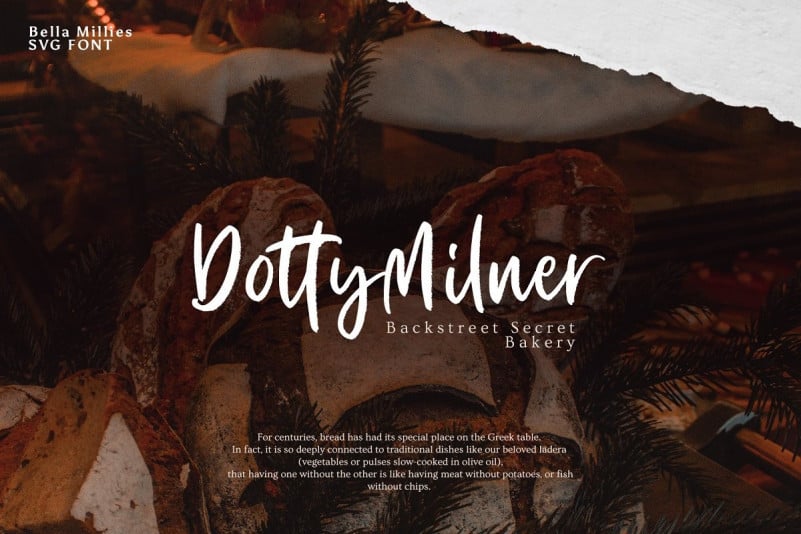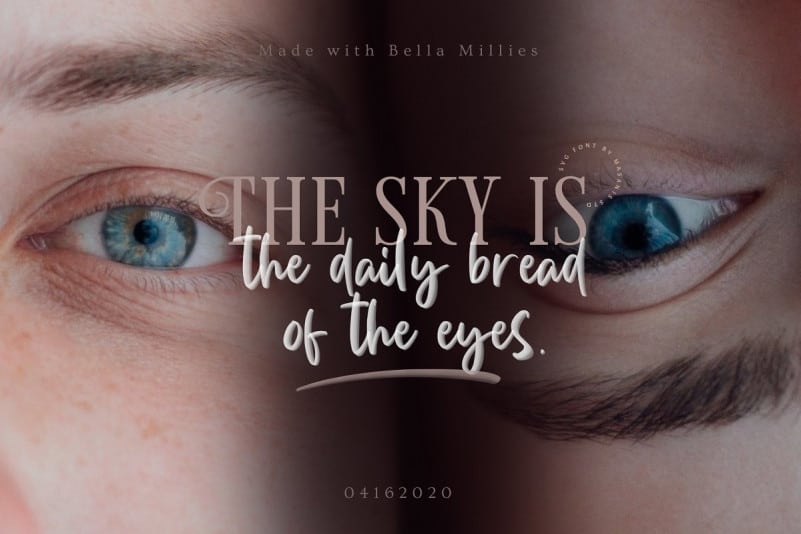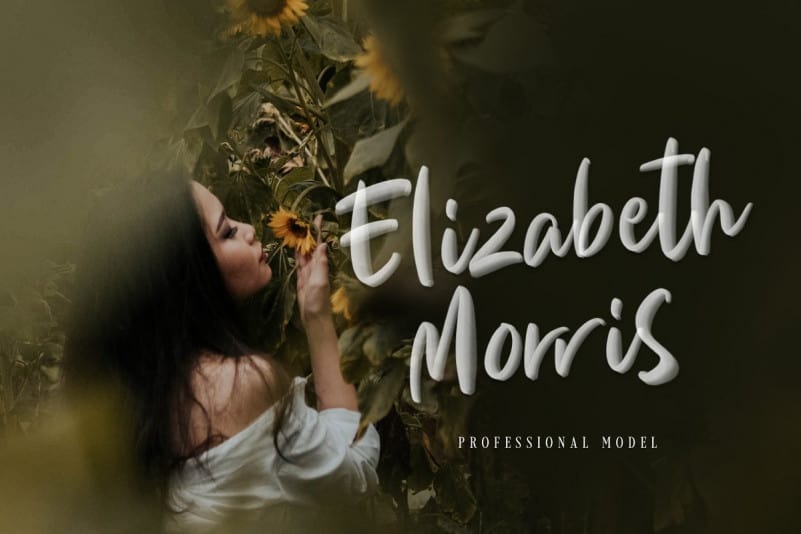
Bella Millies Script Font – Free Demo
This is a handwriting font with brush script that is written casually and quickly, kind of a signature style perfect for watermark, branding projects, packaging products, logo design, etc. Introducing Bella Millies Font! It’s designed and shared by Masanis. It’s a modern SVG font with a realistic hand-lettered sharpie look that makes it the perfect fit for signature logos, printed quotes, wedding invitation cards, social media headers, product packaging and a lot more!